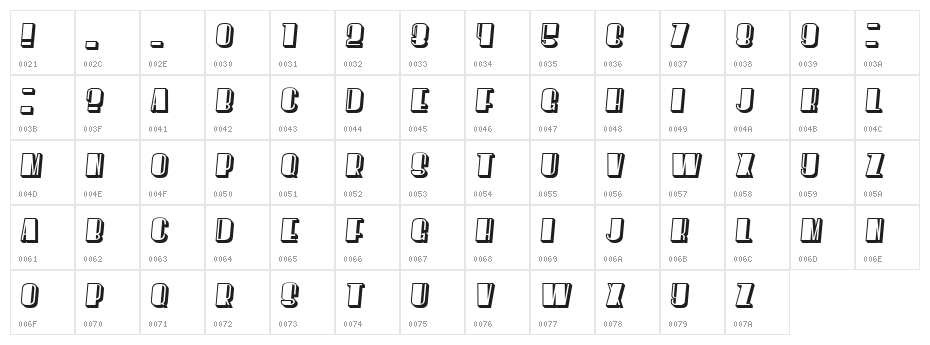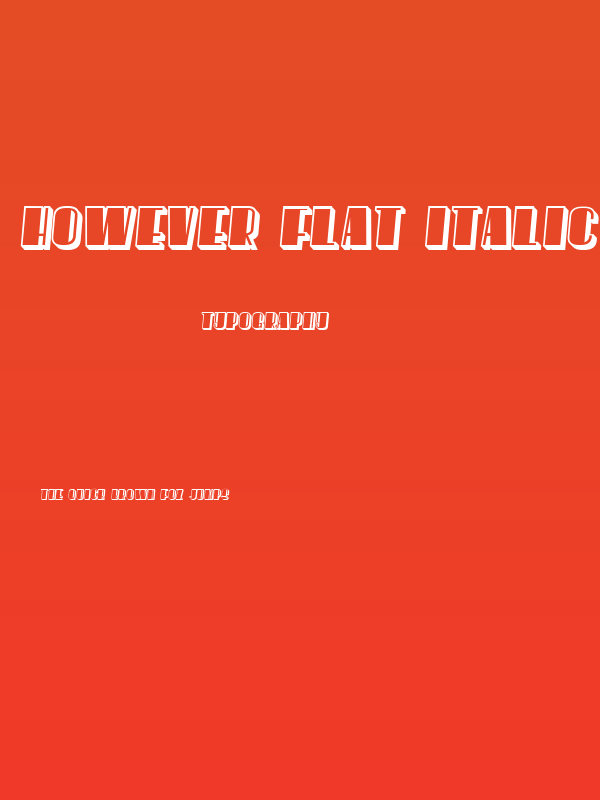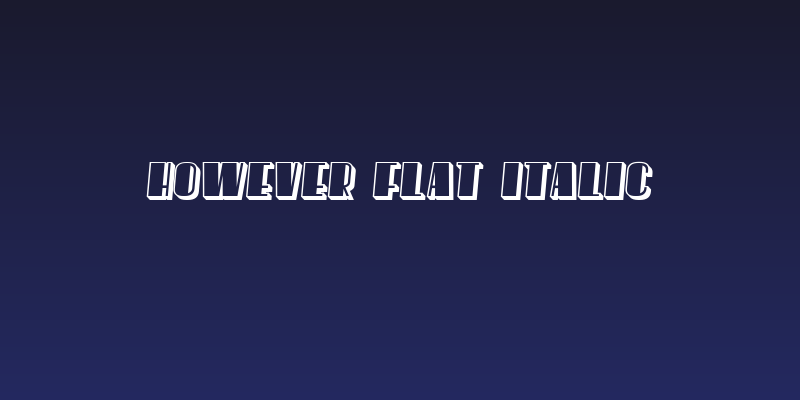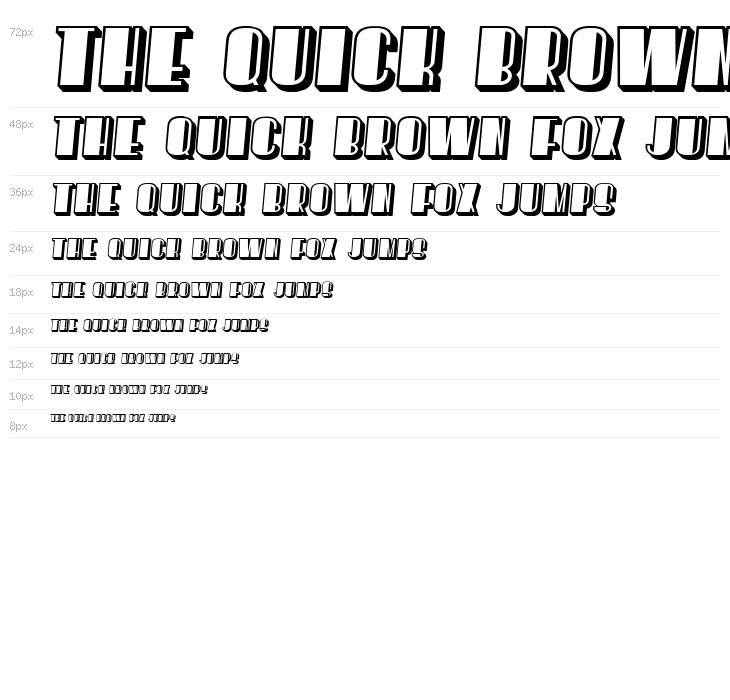
However Flat Italic Font
However Flat Italic Description
This font features a bold, three-dimensional appearance with a distinct shadow effect that gives it a striking and impactful look. The characters are uppercase and have a slightly italicized slant, adding a sense of motion and dynamism. The font's design is geometric and structured, with clean lines and sharp edges that enhance its modern and futuristic aesthetic. The shadow effect is consistent across all characters, creating a cohesive and unified style. This font is ideal for making bold statements and capturing attention with its eye-catching design.
| Proposed Projects | Ideal for posters, headlines, logos, and any design project requiring a bold and modern typeface. |